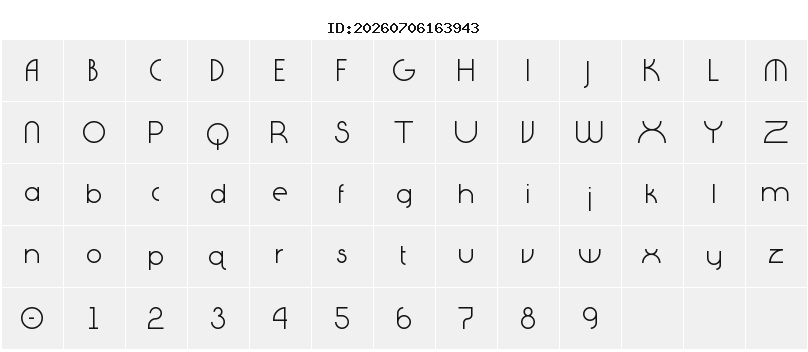
DiagaNO Preview
• Font Name: DiagaNO
• Font ID: DiagaNO:Version 1.00
• Full Font Name: DiagaNO
• Version: Version 1.00 September 4, 2012, initial release
• PostScript Name: DiagaNO
• Designer: Stephen Knouse
• Manufacturer: Essqué Productions
About DiagaNO.ttf
DiagaNO.ttf is a modern, elegant sans-serif font designed for ultimate readability and visual harmony. Perfect for branding, headlines, web design, and print materials.